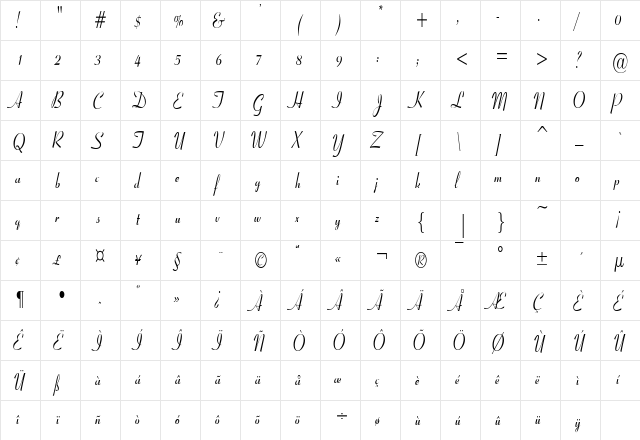
CoronationScriptCondensed Regular Font Preview
CoronationScriptCondensed Regular
CoronationScriptCondensed Regular Font Details
Design Context for CoronationScriptCondensed Typeface
CoronationScriptCondensed flows with the natural rhythm of handwritten lettering, making it ideal for designs that call for warmth and personal expression.
Font Pairing: Combine CoronationScriptCondensed with a simple geometric sans for maximum contrast — the tension between flowing curves and clean structure is a classic typographic pairing.
Pro Tip: Use CoronationScriptCondensed for short runs of text — names, titles, or taglines. Extended body copy in script faces tires the eye quickly.